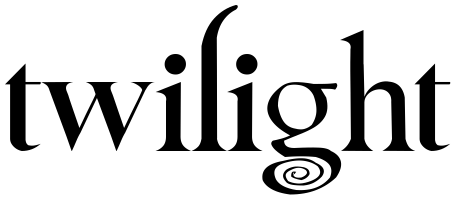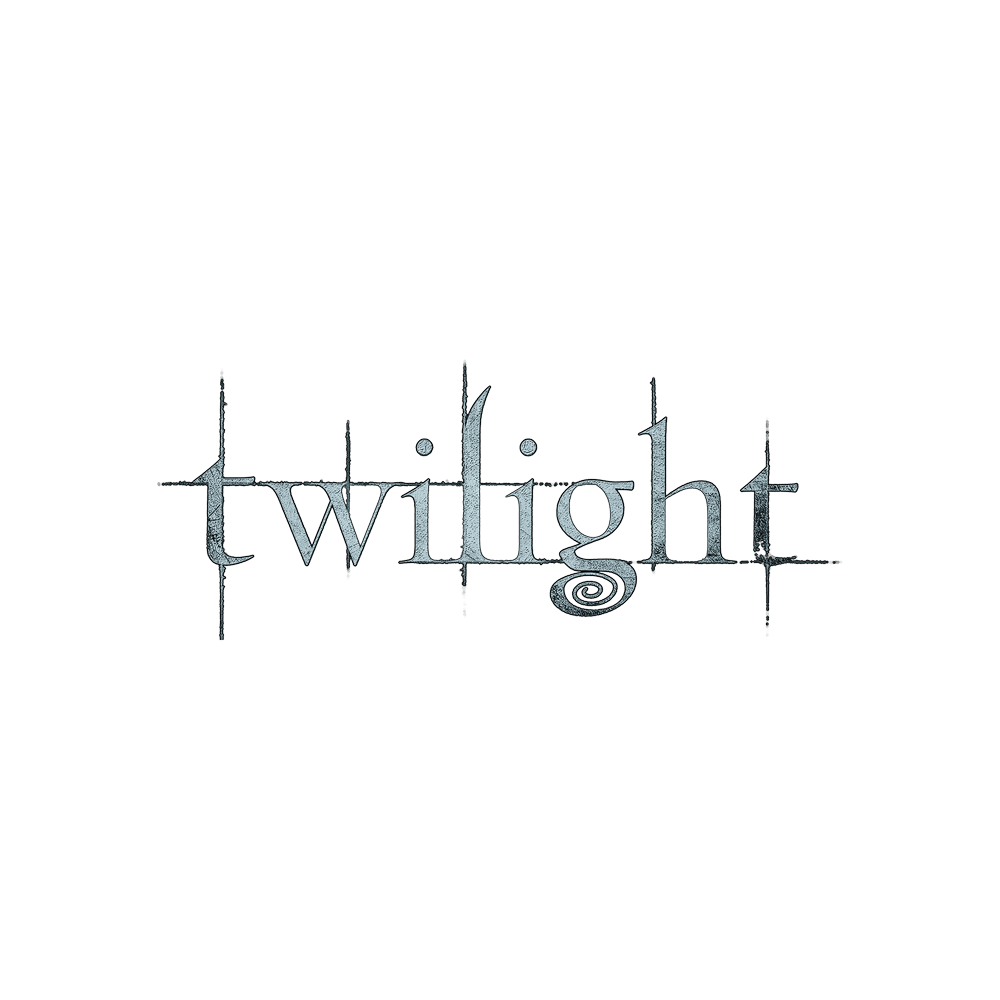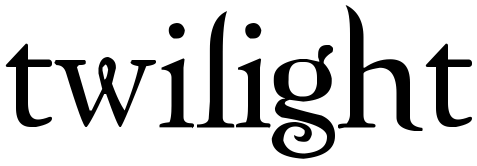
Twilight Font
FantasyTwilight is a 2008 romantic fantasy film based on the best-selling novel of the same name by Stephenie Meyer. It follows the forbidden love story between a human teenager and a vampire.